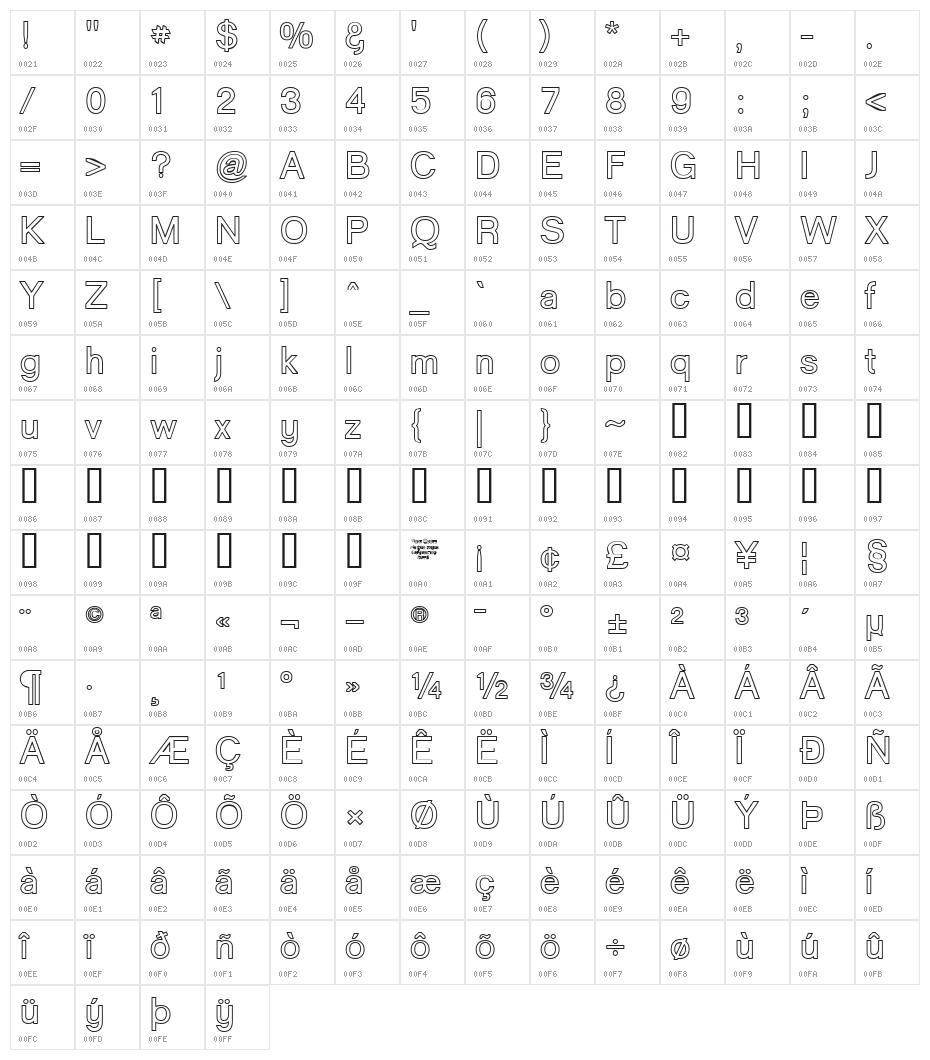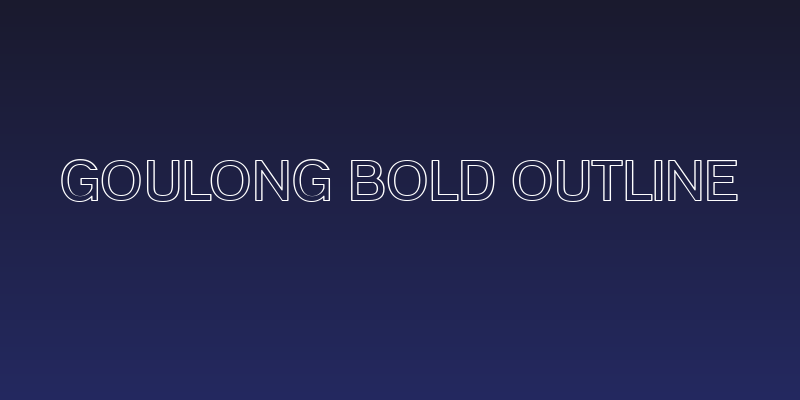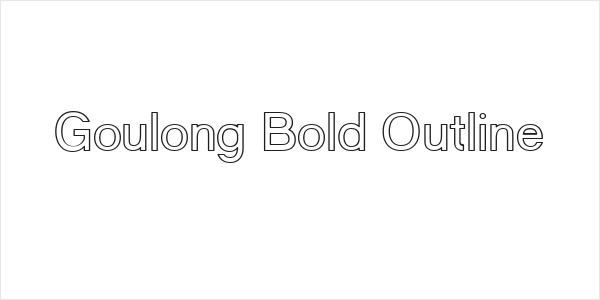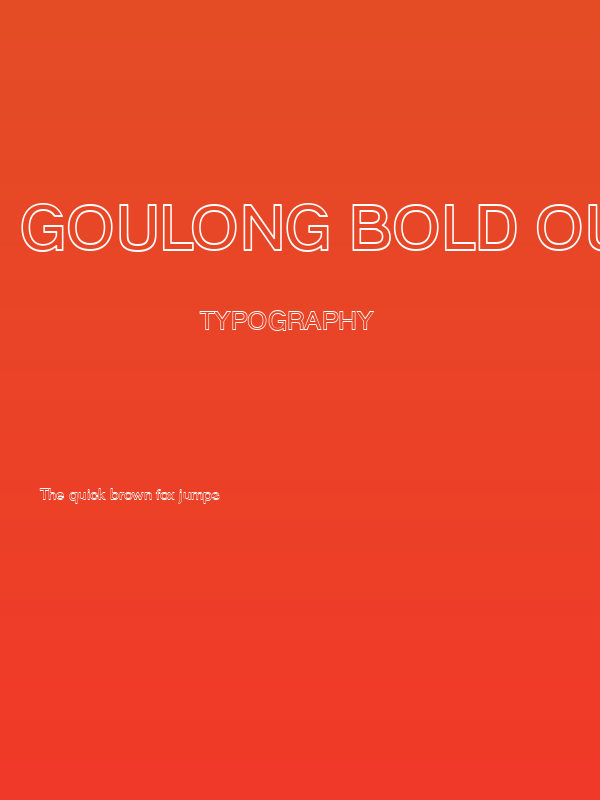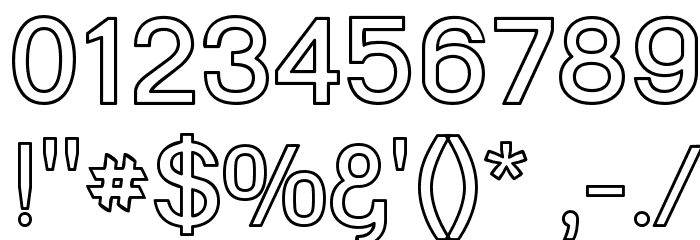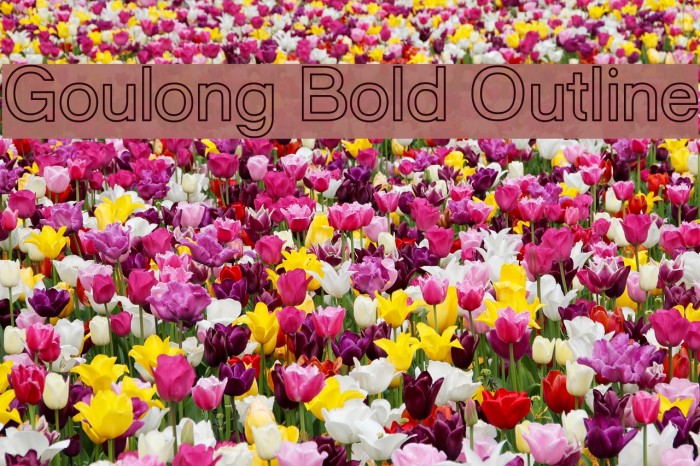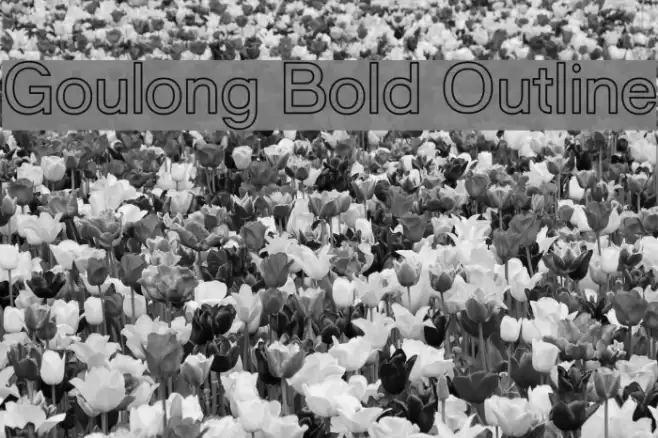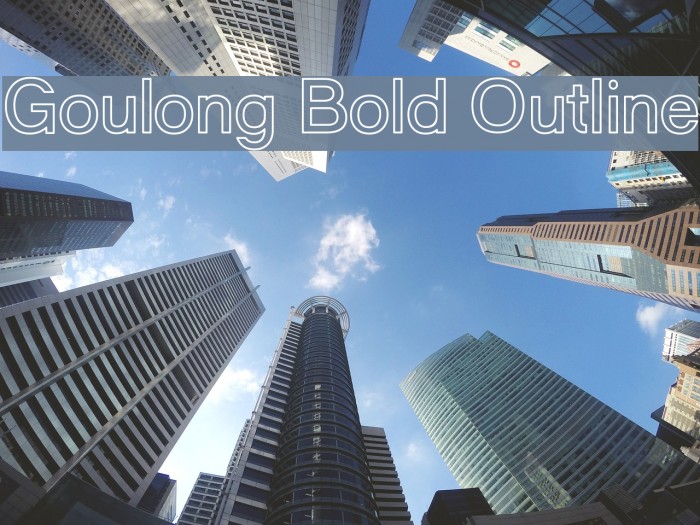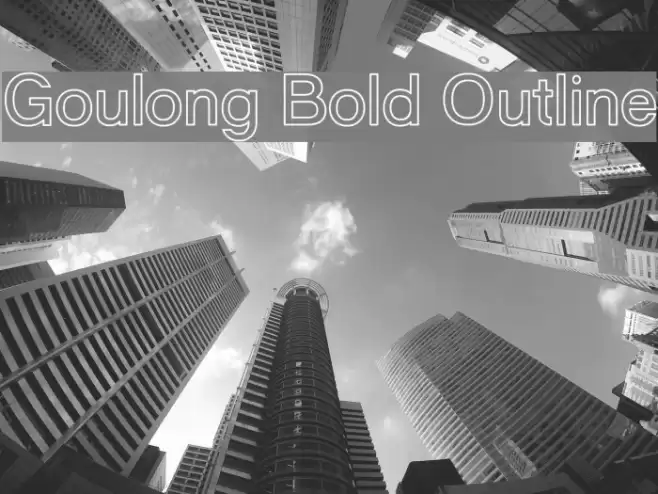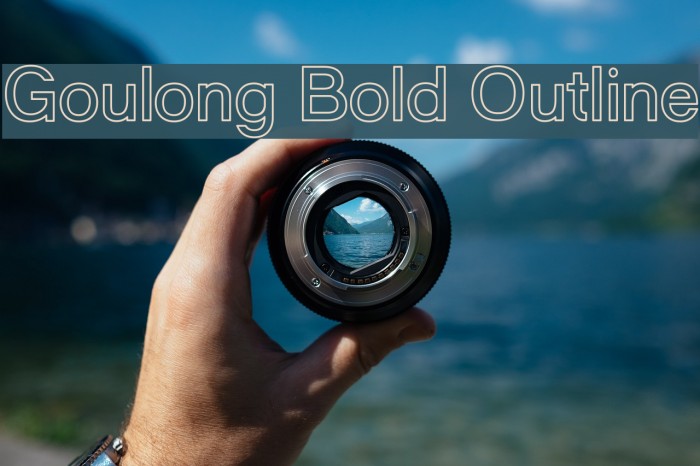
Goulong Bold Outline Font
✎ Sans Serif
Goulong Bold Outline Description
This font features a bold outline style that gives it a striking and modern appearance. The characters are sans-serif, providing a clean and straightforward look. The outlines are consistent in thickness, creating a uniform and cohesive design. This font is highly legible and versatile, making it suitable for various design applications. The uppercase and lowercase letters are well-proportioned, and the numerals are clear and distinct. Special characters are included, maintaining the same bold outline style, which adds to the font's versatility.
| Proposed Projects | Ideal for headlines, posters, branding, and any design project requiring a bold and modern touch. |